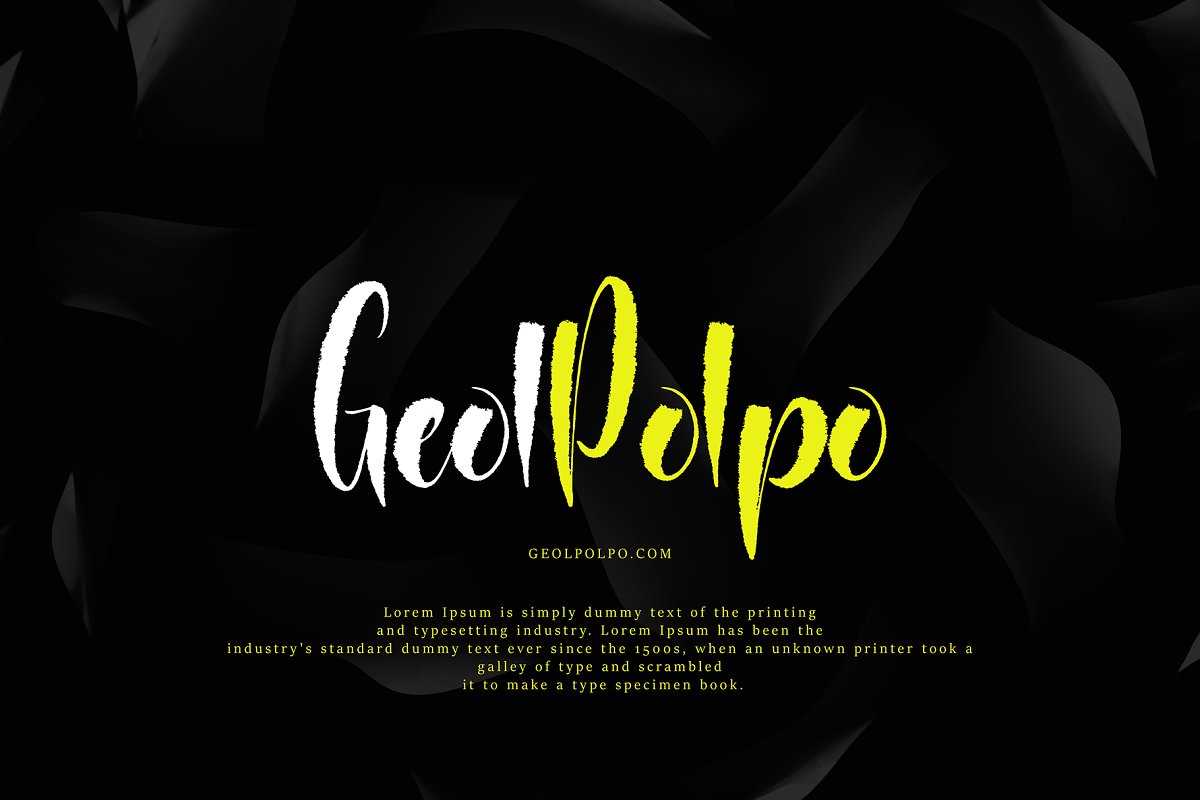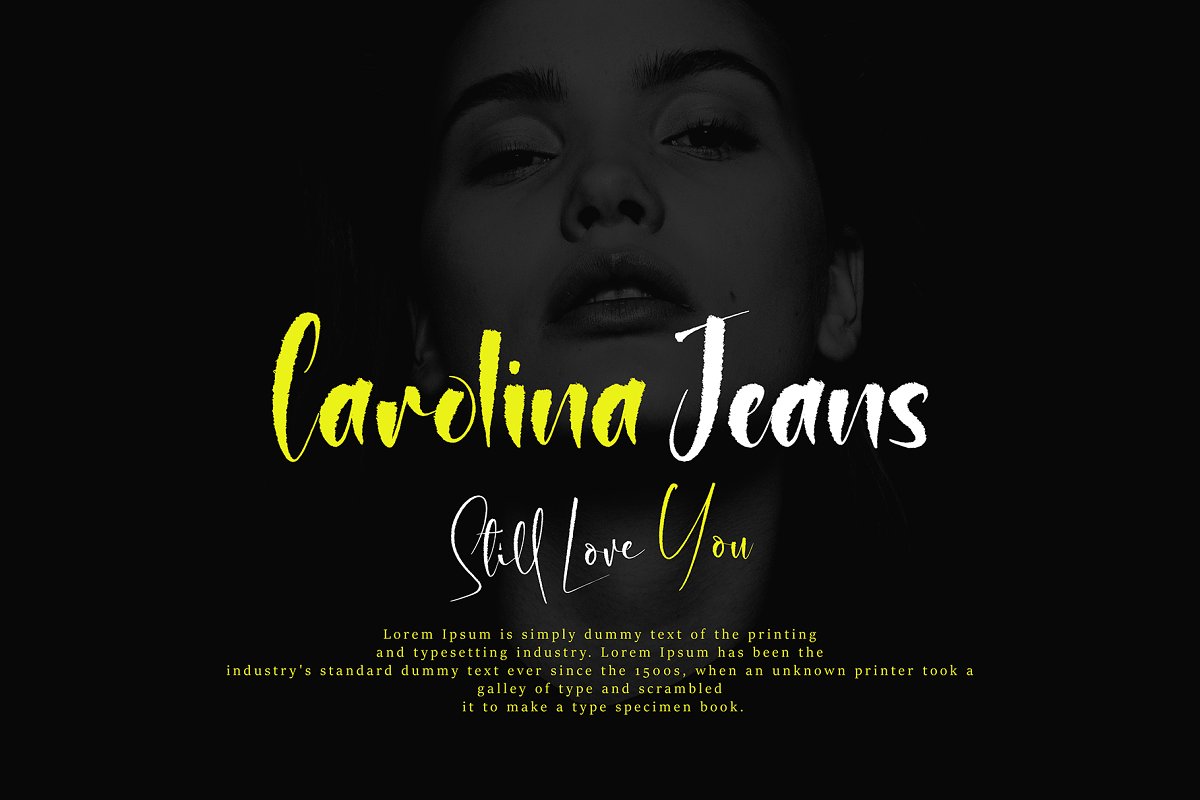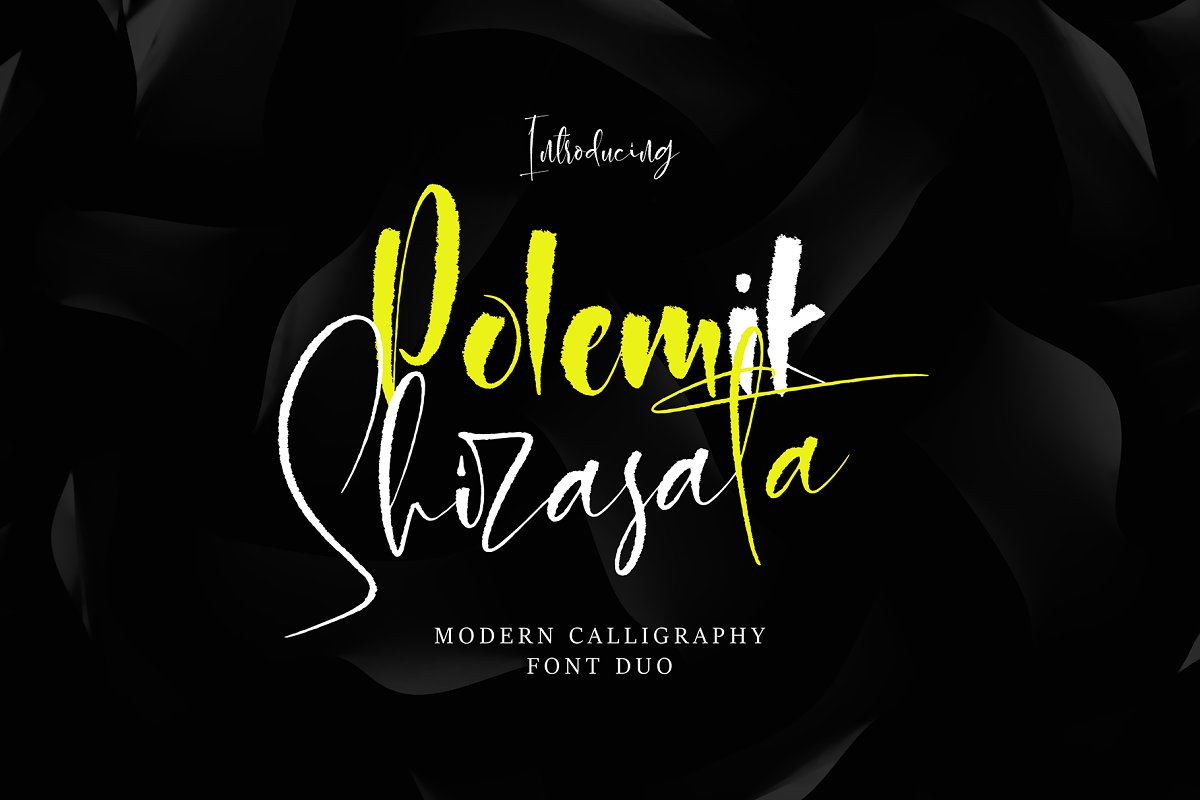
Shirasata Font Duo
Shirasata Font Duo font with modern Handwritten style, this font will perfect for many different project ex: quotes, logo, blog header, poster, banding, fashion, apparel, letter, invitation, stationery, etc…